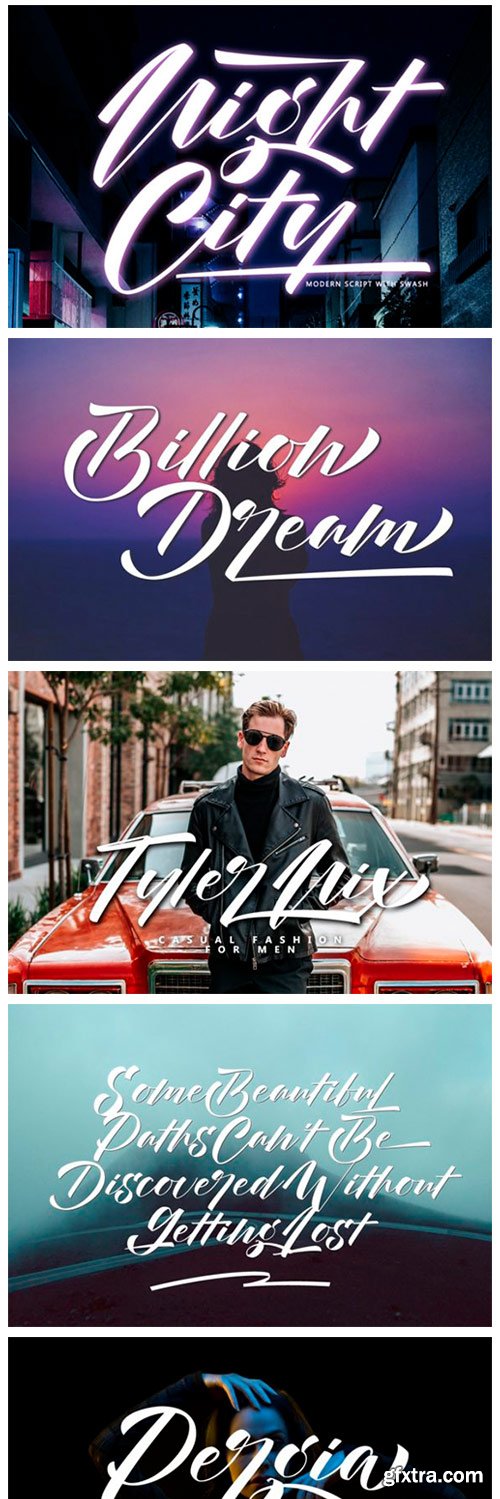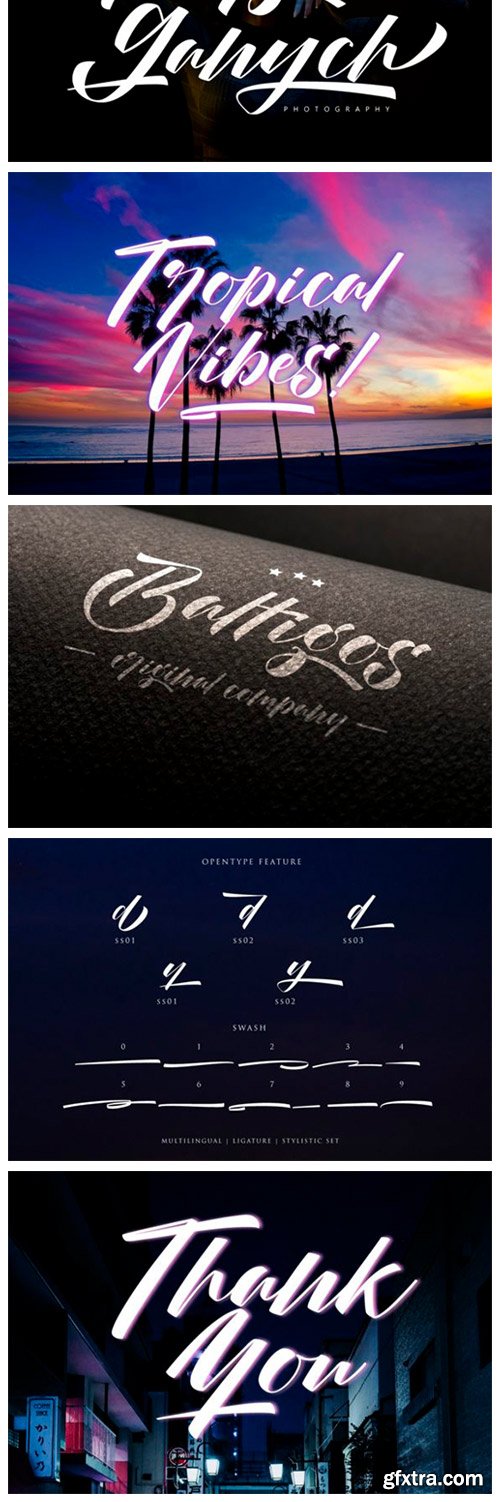
Night City Font
Night City is a beautiful and bold handwritten font that’s great for delivering any message with confidence, authenticity and charm. It will elevate a wide range of crafting ideas, from cards, to branding, labels and much more. Night City is PUA encoded which means you can access all of the amazing glyphs and ligatures with ease!